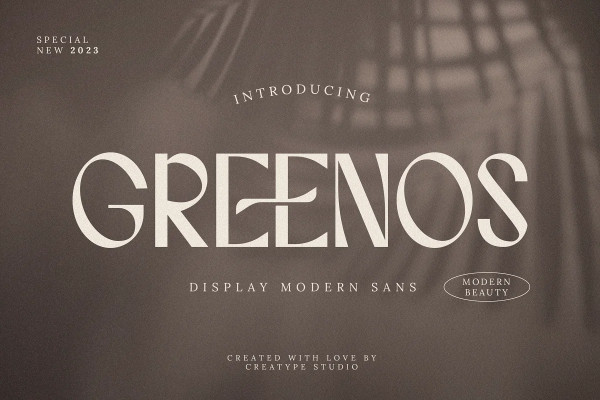
Greenos Font
Greenos Font, Strong modern wans contrasts make this typeface both impressive and readable in a text size that also shows.
Greenos is perfect for branding projects, logos, wedding designs, social media posts, advertisements, product packaging, product designs, label, photography, watermark, invitation, stationery, and any projects that need handwriting taste.